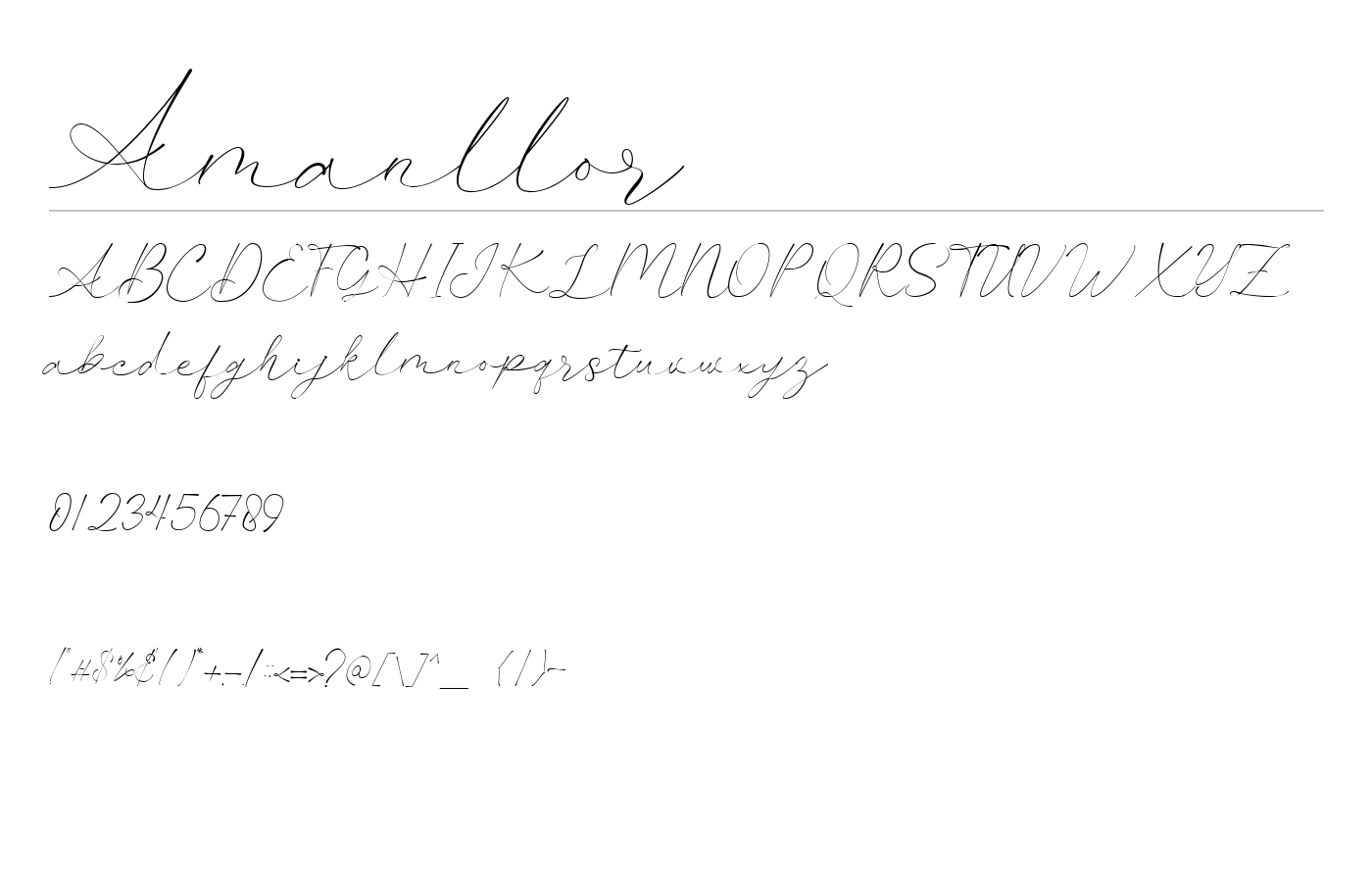
Amanllor is an elegant, delicate script font with a very thin, flowing stroke that mimics fine, handcrafted calligraphy. Its tall, slender letterforms and charming swashes create a sophisticated and graceful feel, making it perfect for invitations, branding, and luxury editorial design where a refined, artistic touch is desired.
Amanllor Font
About Amanllor Font
| Font family | Amanllor Font |